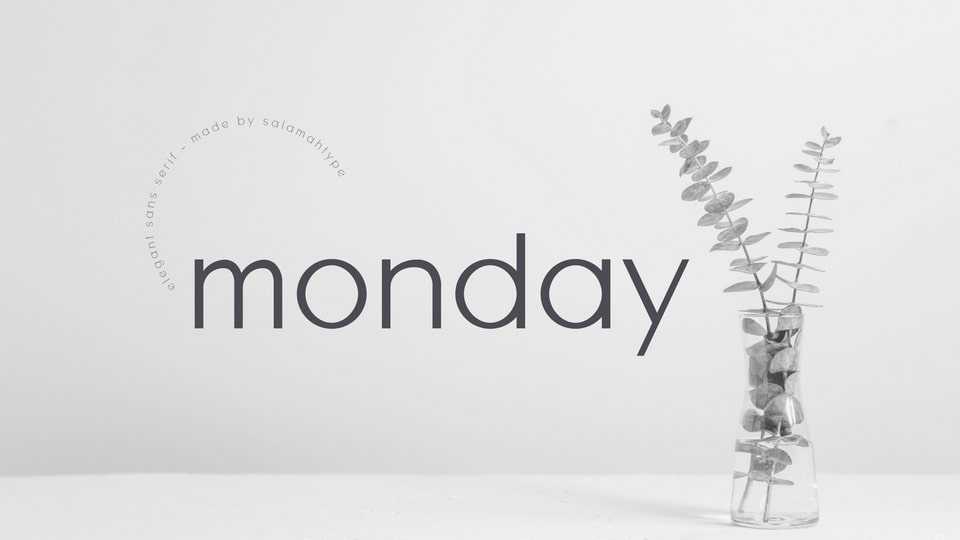
Downlload Monday Sans font, a clean sans serif typeface. This font perfect for branding projects, logos, social media posts, advertisements, product packaging, wedding invitations and so on.